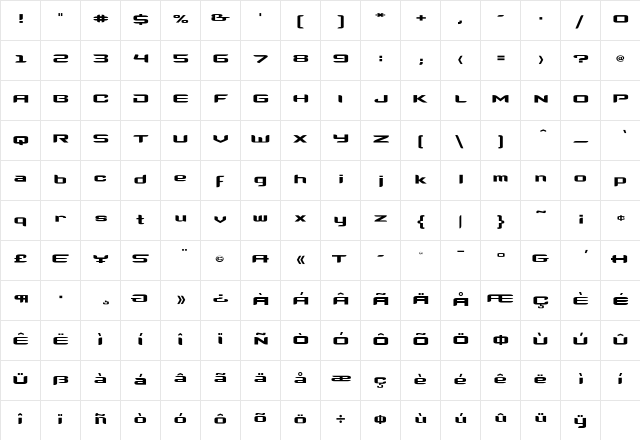
Megahertz Regular
Design Context for Megahertz Typeface
Megahertz is a composed and adaptable typeface that performs quietly and consistently across a wide range of design contexts.